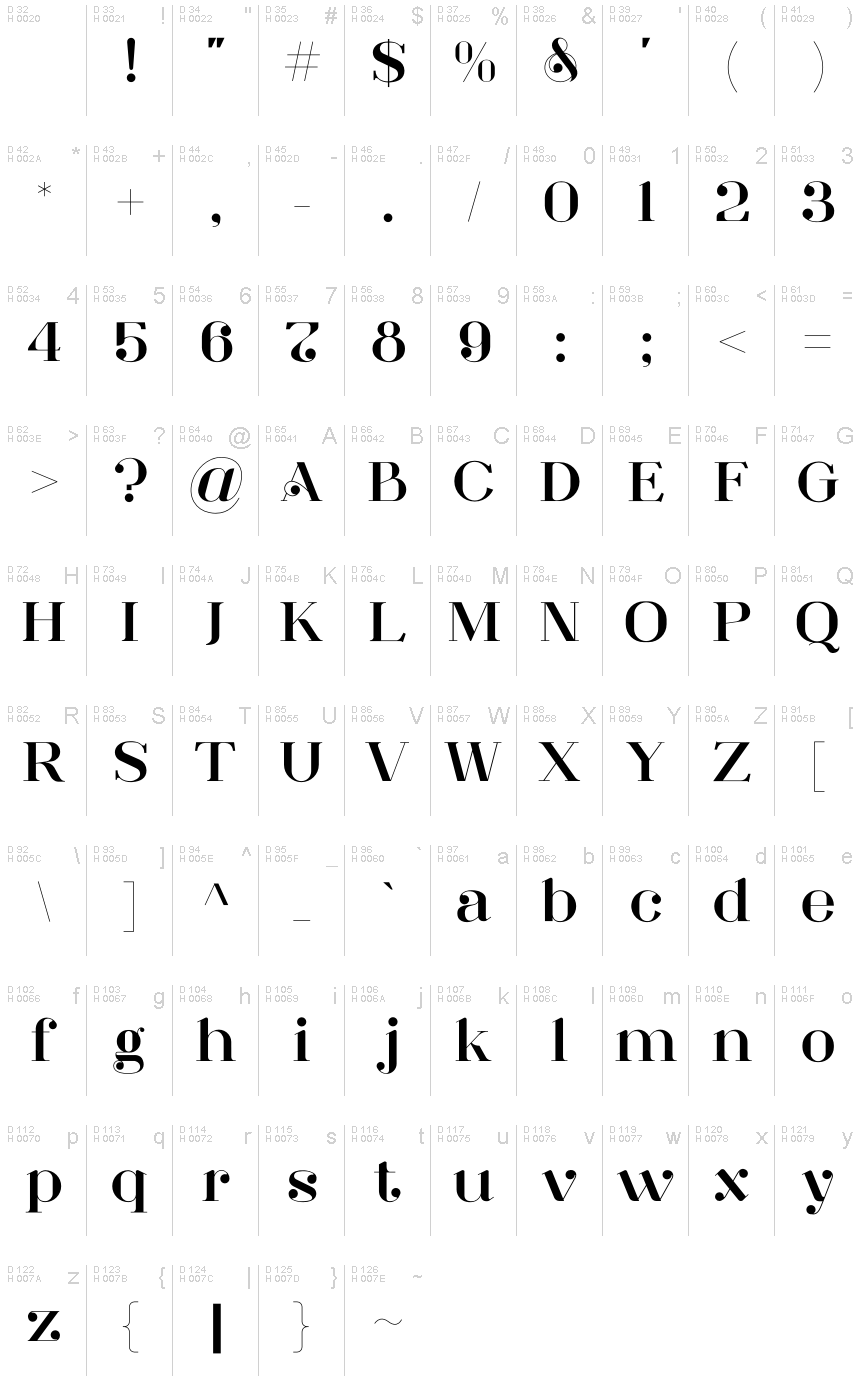
MGN Felizia
MGN Felizia, a captivating serif font designed by Studio Morgana.id, evokes a sense of timeless elegance and sophistication. With its refined, flowing lines and delicate serifs, this font exudes a refined, traditional aesthetic that commands attention. The intricate balance between the font's robust structure and graceful accents creates a visually striking and harmonious appearance, making it an ideal choice for high-end branding, editorial layouts, and prestigious publications.
The versatility of MGN Felizia allows it to shine in a variety of design contexts. Its classic elegance lends itself seamlessly to luxury product packaging, while its readability and attention to detail make it a compelling option for editorial content. Equally at home in formal invitations, event branding, or book cover designs, MGN Felizia's adaptability ensures it can elevate the aesthetic of any project that requires a touch of timeless sophistication.